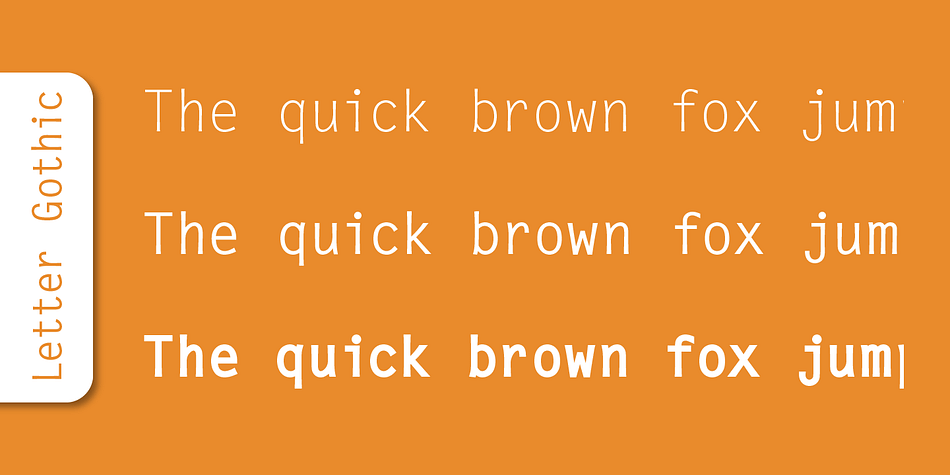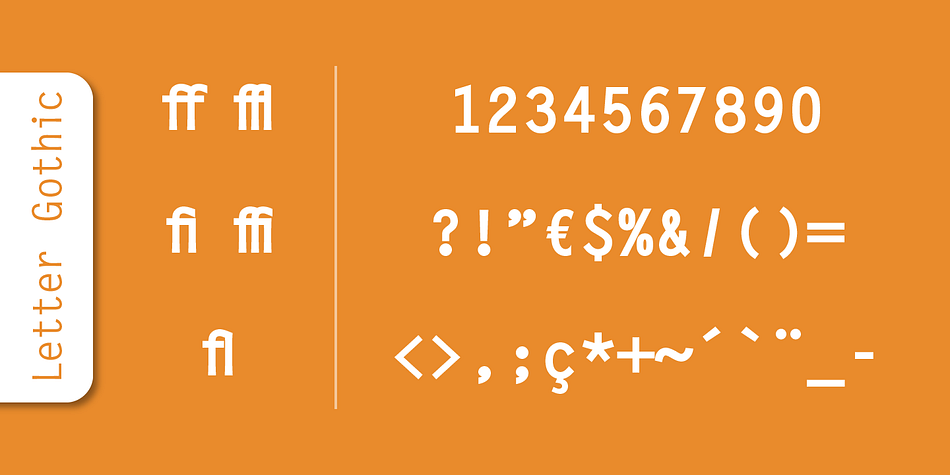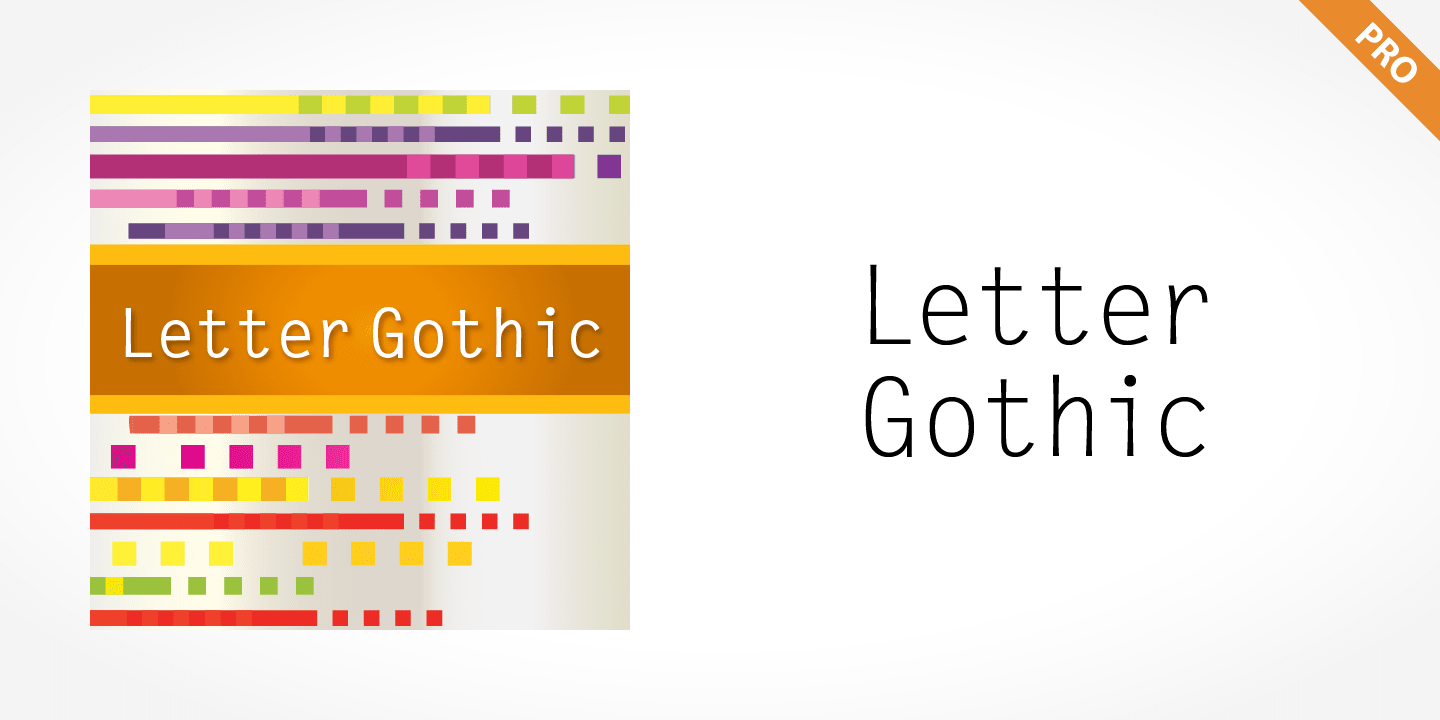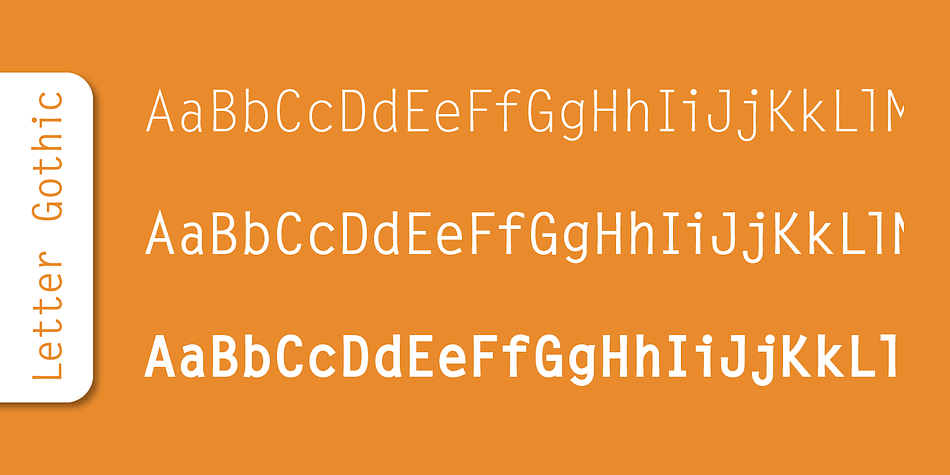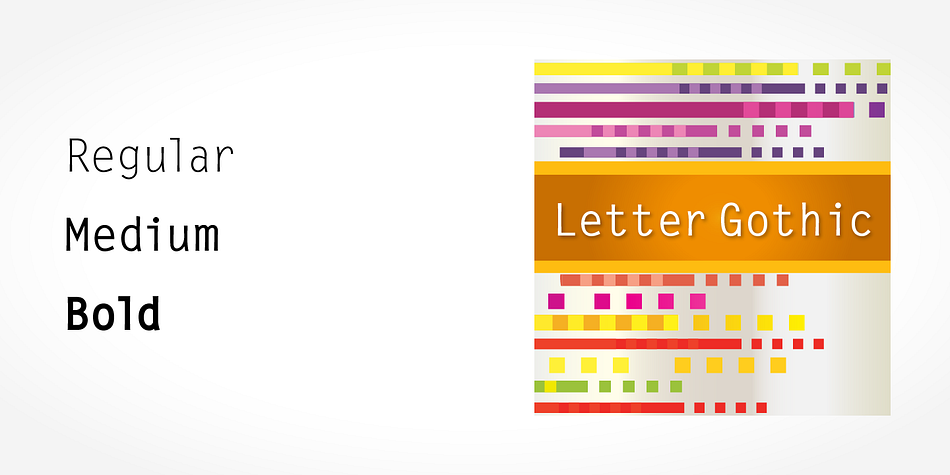
Letter Gothic Pro
Letter Gothic Pro is a sans serif font family. This typeface has three styles and was published by SoftMaker.
Letter Gothic was designed by Roger Roberson for IBM sometime between 1956 and 1962. Inspired by Optima, the typeface originally had flared stems. A monospaced sans serif font designed for use on an IBM Selectric typewriter, Letter Gothic font is a good choice for tabular material.